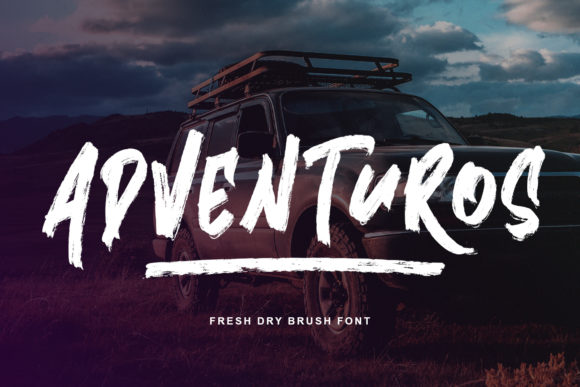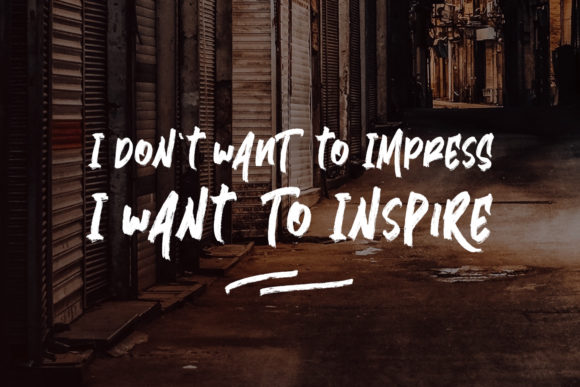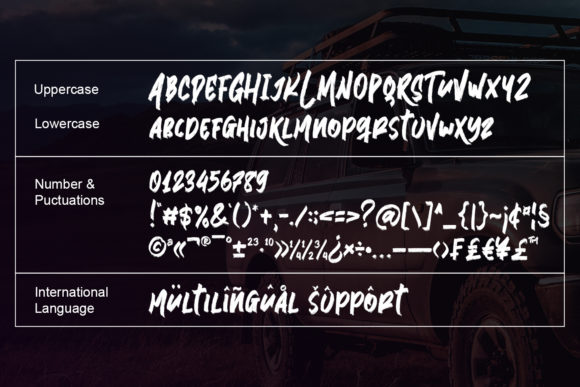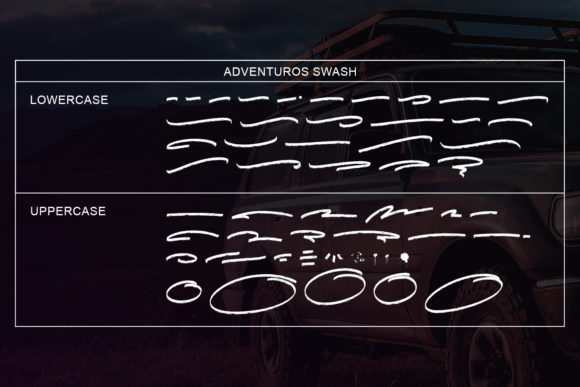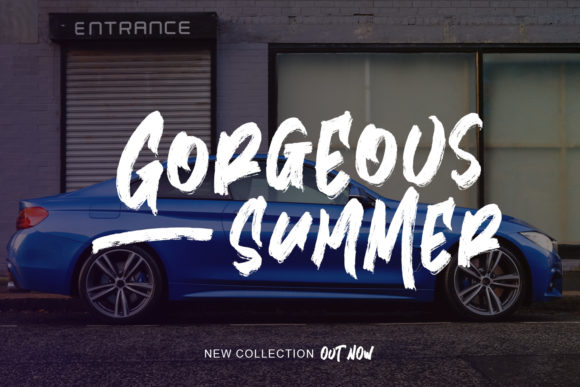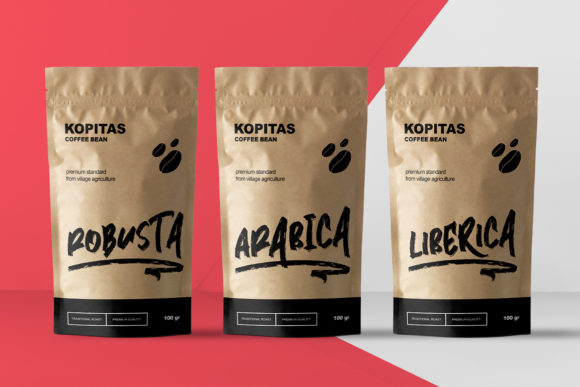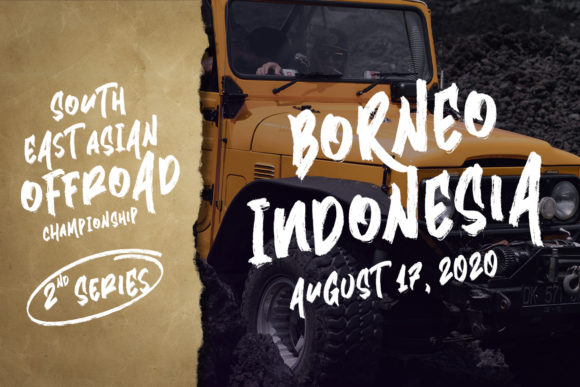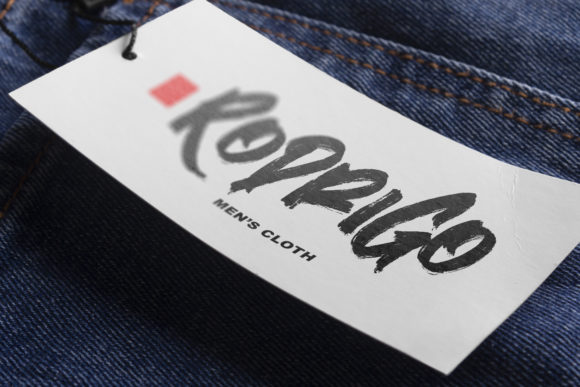
Adventuros Font
About Adventuros Font
Adventuros is a great handwritten font with a brush style. It is great for branding, packaging, logos, cards, apparel, quotes, banner, social media, and another project that needs an urban style.